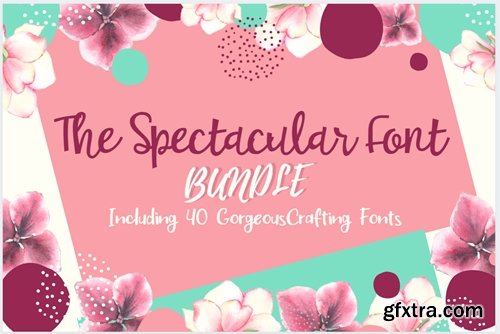
The Spectacular Font Bundle
Our Spectacular Font Bundle is a gorgeous collection of 40 premium fonts, carefully designed by one of our top designers, Illustration Ink. It brings together a stunning set of 40 eclectic crafting fonts – from swirly scripts to cute display fonts – that will elevate any arts & crafts project to the highest level!